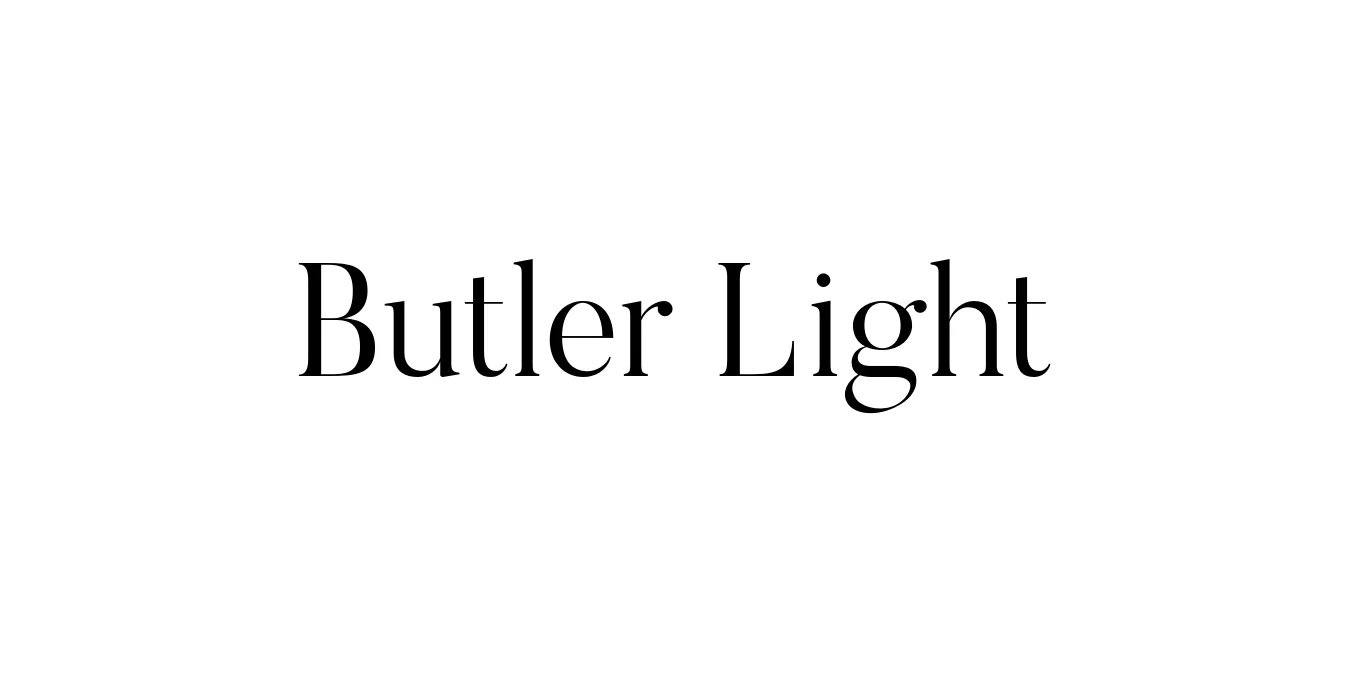
Butler Light
Designed by Fabian De Smet
Butler Light is a modern serif typeface designed by Fabian De Smet. It was inspired by a unique combination of the classic Bodoni family and the stencil-styled Dala Floda, aiming to bring a contemporary flair to traditional serif structures. By focusing on refining the curves and contrast of classical fonts, the designer created a typeface that balances heritage with a sleek, minimalist aesthetic suitable for modern media.
The Butler Light weight belongs to a comprehensive family of 14 weights, ranging from ultra-light to bold, including specialized stencil versions. This specific light variant is celebrated for its sophisticated high contrast and sharp terminals, making it a top choice for high-end editorial layouts, luxury fashion branding, and any project that requires an atmosphere of elegance and professional precision.
Butler Light Best Uses
Perfect for magazine headlines, body text in fashion journals, and high-end book covers.
Ideal for creating elegant logos and visual identities for luxury goods and lifestyle brands.
Excellent for large-scale display typography where its refined details can shine.
Works beautifully as a sophisticated header font for minimalist or portfolio websites.